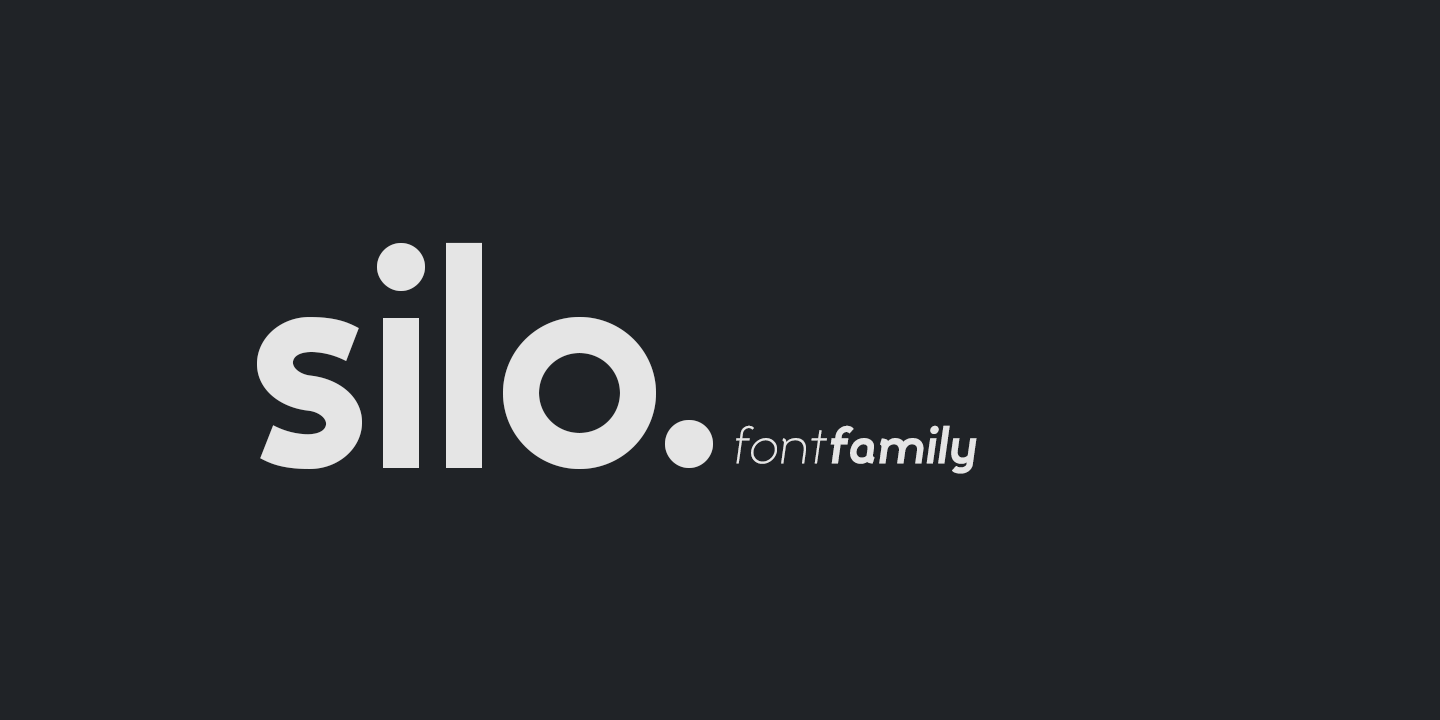
Silo Font is a robust and distinctive typeface, often characterized by its sturdy, geometric forms and a clean, industrial aesthetic. It projects a sense of reliability and strength, making it an excellent choice for modern design projects that require clarity and impact. Imagine it perfect for architectural firm branding, durable product packaging, contemporary tech company logos, impactful event signage, modern website headers, and strong editorial designs. This font excels in environments where a sense of structured precision, unwavering quality, and a bold, legible presence are paramount. It’s particularly effective for conveying a blend of efficiency and understated power, ensuring your message stands out with an unmistakable character and solid reliability.
What makes Silo Font truly exciting is its ability to blend minimalist design principles with a powerful visual presence. Its well-defined lines and often generous spacing contribute to excellent readability, even in challenging environments or when scaled large for display. This font isn't just about displaying text; it's about building a foundation of visual trust and clarity, injecting your designs with a sense of robust modernity and timeless functionality. It has a powerful ability to feel both incredibly grounded and surprisingly versatile, making it an ideal tool for designers who want their work to convey strength, reliability, and strong visual impact. Silo Font empowers brands and creatives to project an image of dependable sophistication and enduring design.
The Silo Font family typically offers a range of weights and styles to ensure maximum versatility for diverse design projects. You'll often find it includes a spectrum from light to regular, medium, and bold, allowing for clear typographic hierarchy and emphasis within your designs. Corresponding italic styles are also commonly available, providing robust options for varied text presentation. This extensive family ensures that Silo Font Free Download can adapt seamlessly to any design challenge, from concise body text to commanding headlines, all while maintaining a consistent and harmonious visual language. Its broad character set usually covers a wide range of Latin characters, numbers, and extensive punctuation, making it suitable for international projects and complex textual layouts.